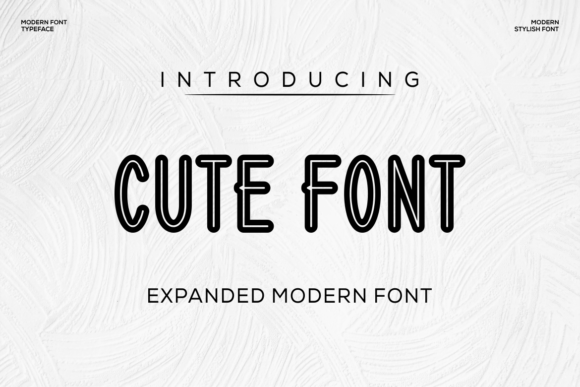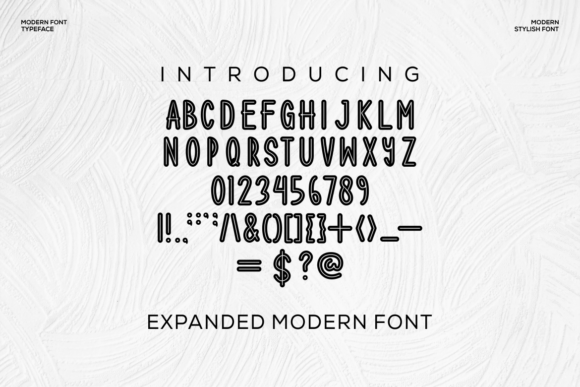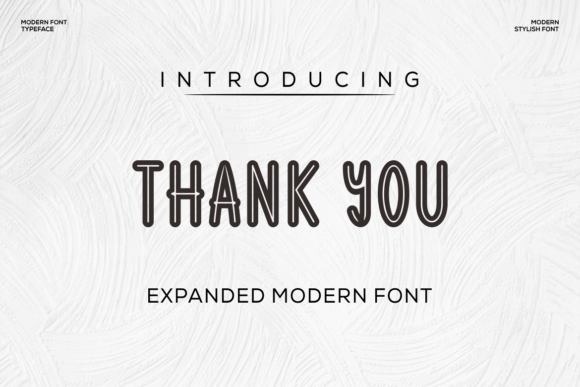
Introducing Handog Font: The Modern Display Font You Need
Have you ever been in the middle of a design project, and suddenly, you’re stuck on finding the perfect font? I recall a recent experience where I was working on a branding project for a trendy coffee shop. The client wanted a bold, eye-catching font that would stand out on their merchandise, but I was struggling to find something that fit the bill. That’s when I discovered **Handog Font**, a modern display font that has become my go-to for bold and authentic designs.
What I Love About Handog Font
Here’s what makes Handog Font a standout in my book:
- ✨ Bold and Authentic: Handog Font has a unique, modern aesthetic that’s perfect for making a statement.
- ✅ Versatile: This font works well in a variety of contexts, from logos and t-shirt printing to creative products and more.
- 💡 Easy to Read: Despite its bold nature, Handog Font remains surprisingly legible, even at smaller sizes.
While Handog Font is an excellent choice for many projects, there are a few things to keep in mind:
- 🤔 Limited Use in Body Text: Due to its bold nature, Handog Font might not be the best choice for lengthy body text. It’s best used for headings, titles, or short phrases.
- ⚠️ Some Kerning Issues: As with any font, there might be some kerning issues, especially when using certain character combinations. Be sure to review your text carefully.
The story behind Handog Font is one of creativity and experimentation. The designer aimed to create a bold, modern font that would stand out in a crowded design landscape. Inspired by urban landscapes and contemporary art, Handog Font was crafted to be both authentic and attention-grabbing.
| What type of projects is Handog Font best suited for? | Handog Font is perfect for branding projects, logos, t-shirt printing, creative products, and more. |
| Is Handog Font suitable for body text? | While it’s possible to use Handog Font for body text, it’s recommended to use it for headings, titles, or short phrases due to its bold nature. |
| Does Handog Font support OpenType features? | Yes, Handog Font supports OpenType features like ligatures and stylistic alternates, which can be accessed in compatible design software. |